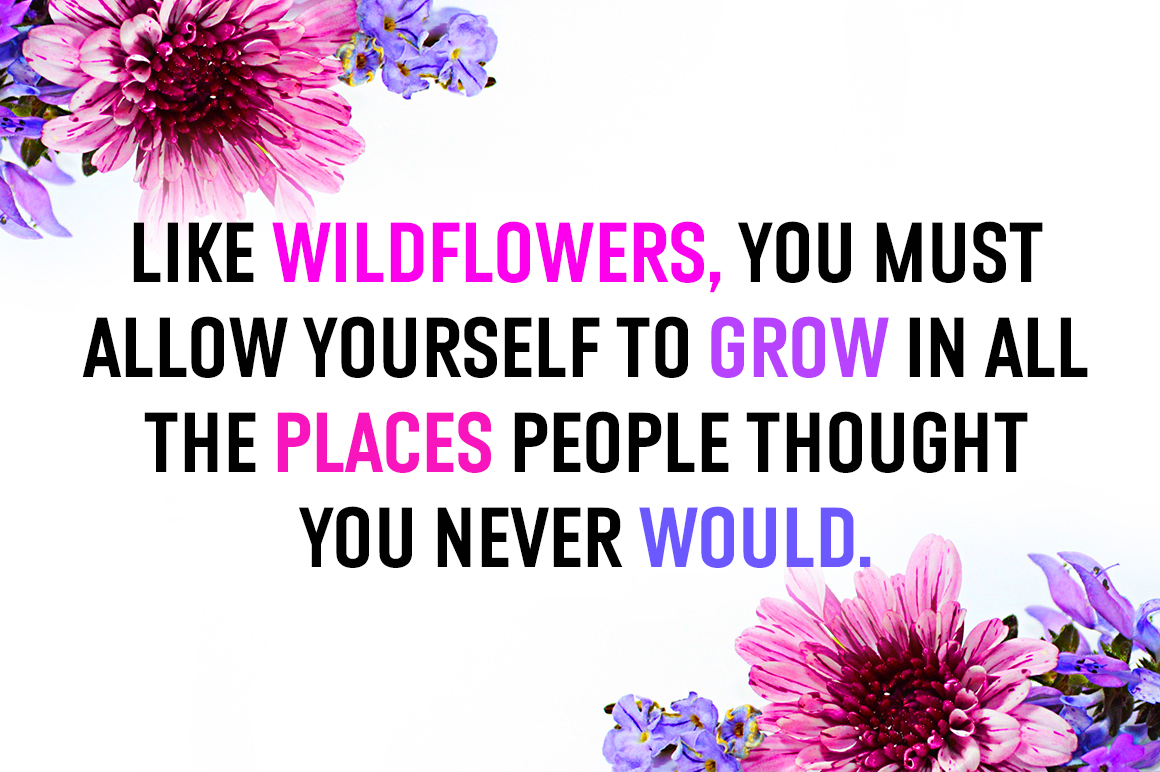
The Perfect Visual Punch: Unlocking the Power of Envision Font
Have you ever stared at a blank page, trying to conjure up the perfect visual idea to capture your audience’s attention? We’ve all been there. The moment when everything comes together – a well-placed image, a catchy headline, and the perfect font to tie it all in. That’s where Envision Font comes in – a sleek and stylish sans serif font designed to elevate your typographic game.
Envision Font is the perfect tool for designers looking to add some visual flair to their work. Whether it’s a bold headline or a clean body text, this all caps sans serif font helps bring some much-needed style to your typographic endeavors. With Envision Font, you can unlock a new level of creativity and take your designs to the next level.
Key Features of Envision Font
- Font Family: Envision Font is a sans-serif font family, designed to be highly legible and versatile.
- Character Set: Supports a wide range of languages, including Latin, Cyrillic, and Greek alphabets, with over 1000 glyphs.
- Font Sizes: Available in 8 different weights, ranging from Light (100) to Extra Bold (800), allowing for precise control over text styling.
- Unique Characteristics: Envision Font features a distinctive geometric shape and a subtle rounded edge, making it highly readable and visually appealing.
Envision Font Review
Overall, I have mixed feelings about the Envision Font. On one hand, it’s a beautiful, elegant font that’s perfect for creating a sophisticated and modern look. ✨ Its clean lines and minimalist design make it an excellent choice for branding and marketing materials.
- ✨ Excellent legibility, making it easy to read even at smaller font sizes.
- ✨ Versatile and suitable for a wide range of applications, from business cards to websites.
- ✨ Supports a variety of languages, making it a great choice for international brands.
- ⚠️ Limited character set, which may not be suitable for applications that require a wide range of special characters.
- ⚠️ May not be the best choice for text-heavy content, as it can look a bit sparse at smaller font sizes.
Overall, I would say that the Envision Font is a solid choice for designers who want to create a modern and sophisticated look. However, it’s not without its limitations, and designers should carefully consider their needs before choosing this font.
Envision Font is particularly useful in Canva for creating modern and sleek designs, such as logos, business cards, and social media graphics.
Envision Font is ideal for creating professional-looking designs in Adobe Photoshop and Illustrator, such as brochures, posters, and infographics.
Envision Font is perfect for creating presentations, reports, and documents that require a modern and professional touch.
Inter is a clean and modern sans-serif font designed by Rasmus Andersson. It is suitable for digital products and is particularly effective in scenarios where clear readability is required. Inter is more geometric and minimalist compared to Envision Font, which has a more rounded and friendly feel. Use Inter when you need a clean and modern look.
Montserrat is a sans-serif font designed by Julieta Ulanovsky. It is a popular choice for digital products and is well-suited for urban and modern designs. Montserrat is more geometric and has a stronger grid structure compared to Envision Font, which has a softer feel. Use Montserrat when you need a strong and urban look.